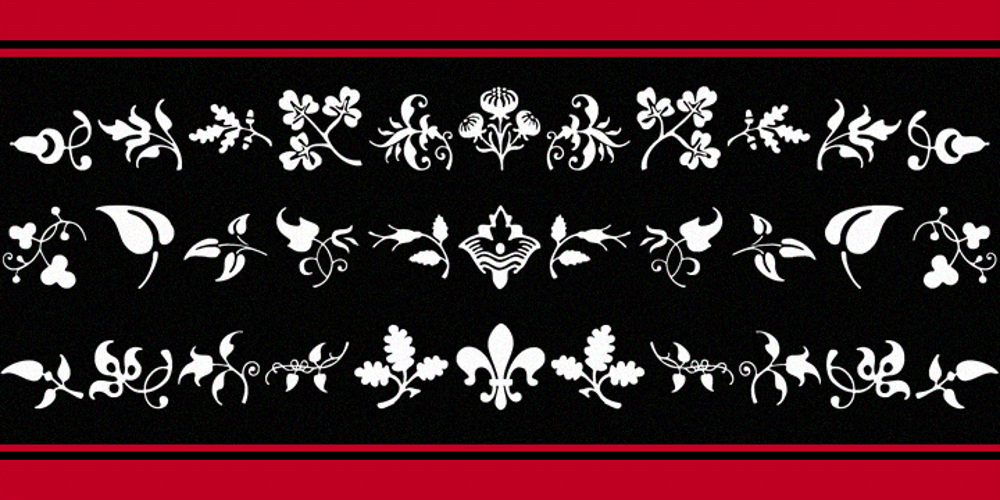
Castle Fleurons Font Family was designed by Jason Castle and published by CastleType. Castle Fleurons contains 1 styles and family package options. A delightful collection of classic fleurons. Useful for adding a tasteful accent to your documents or for creating borders. Left-facing fleurons are complimented by right-facing ones (and vice versa). Some fleurons have four 90-degree rotations for creating interesting tiling patterns.